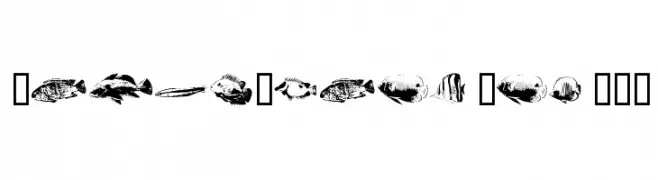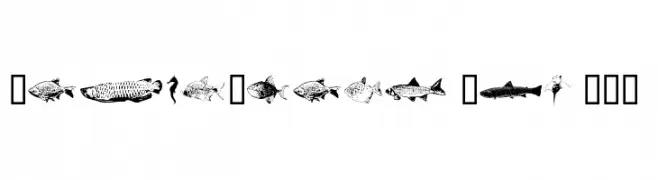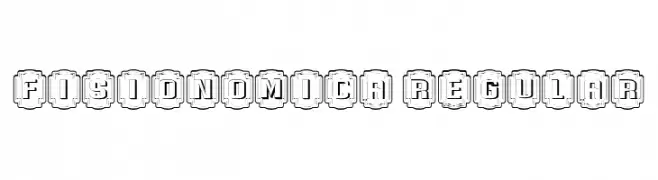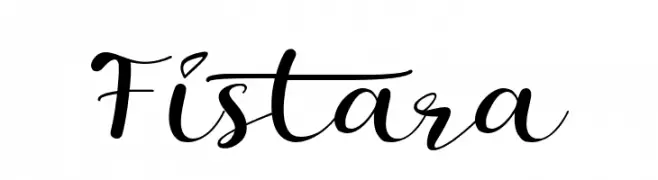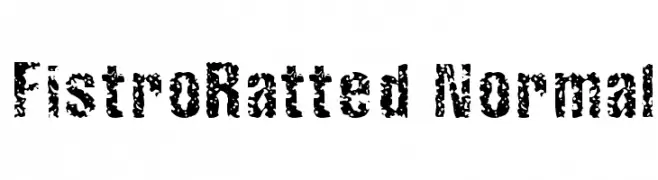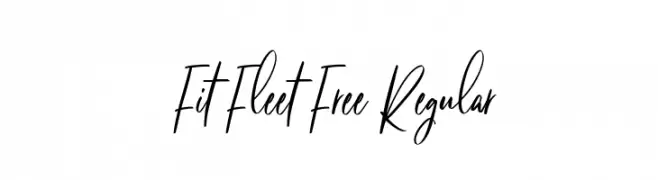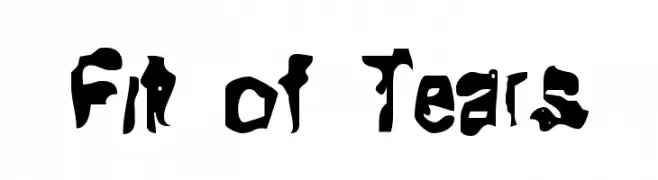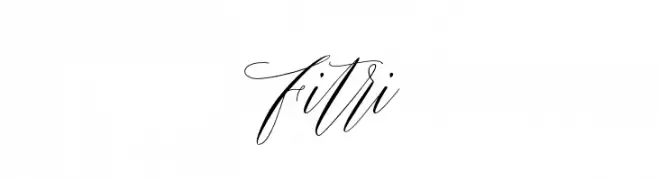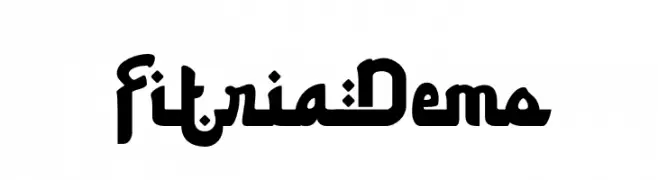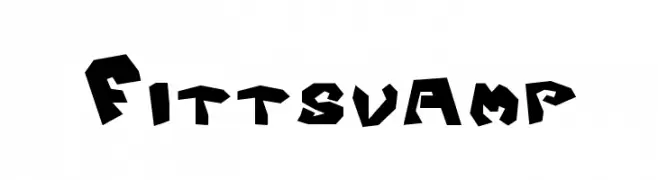
A decorative display font using fish illustrations for each character.
A display font composed of detailed fish illustrations for each character.
A bold, decorative font with a three-dimensional outline and intricate detailing.
A pixelated, geometric font with a retro digital aesthetic.
A bold, geometric font with a distressed, industrial texture.
A graceful, handwritten script font with elegant, flowing strokes.
A dynamic and elegant script font with flowing curves and bold strokes.
A bold, vintage-inspired font with thick, block-like characters and tight spacing.
A modern, stylish handwritten font with fluid, elegant strokes.
A bold, grunge-style font with a dripping, distressed effect.
A bold, artistic font with irregular, fluid shapes resembling ink blots.
A lively and dynamic script font with flowing, cursive letterforms.
A bold, flowing script font with dynamic, connected characters.
A playful, cursive script font with interconnected characters and elegant loops.
A bold, playful script font with smooth, flowing strokes.
A modern serif font with high contrast and elongated letterforms.
Playful handwritten font with an informal style.
Energetic silhouette figures representing fitness and athletic activities.
An elegant script font with fluid, interconnected strokes and high contrast.
A bold, decorative font with geometric accents and a modern flair.
Playful handwritten font with a casual style.
A bold, angular font with a geometric and edgy design.
A modern, geometric sans-serif font with uniform width and clean lines.
A bold, geometric font with consistent line weights and a modern aesthetic.
( Fonts by Callie Hegstrom - www.makemediaco.com - Personal-use only. For commercial use please contact owner. )
A bold, brush-style font with dynamic, hand-painted strokes.
( Fonts by SnailFonts )
A bold, playful handwritten font with thick, rounded strokes.
A pixelated, retro-style font with a blocky, 8-bit design.
A lively handwritten font with fluid, cursive strokes and a casual elegance.
Bold, playful script font with a handwritten style.
A playful, whimsical handwritten font with fluid, continuous strokes.